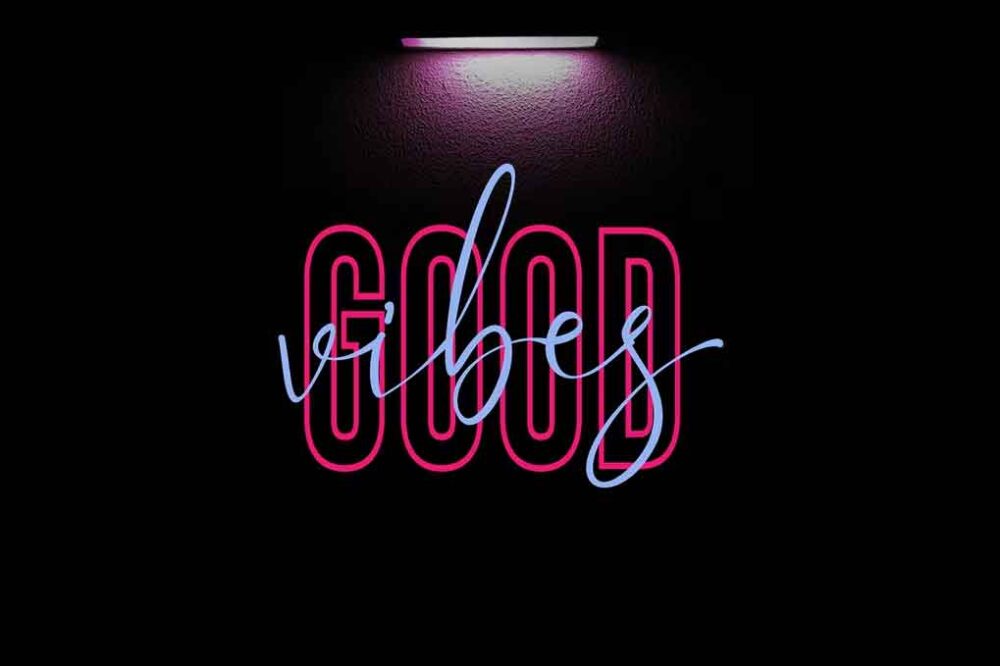
GOOD VIBES 3 FONT
3 FONT BUNDLE (Signature Font and Sans Font)
Hand Lettering Signature font, Sans Bold and Sans Line. For your professional design projects; logos, branding, magazines, blog posts, social media, advertisements & product designs.